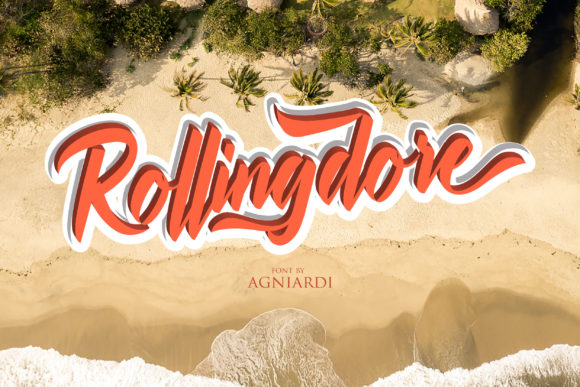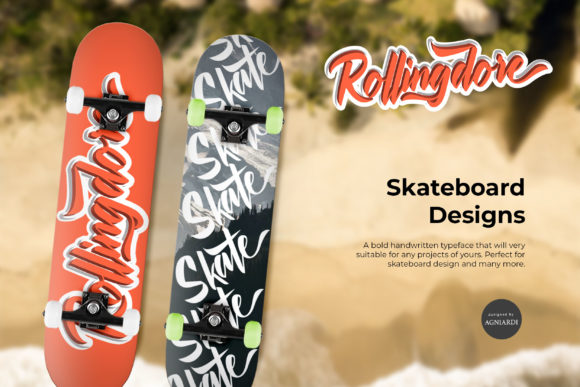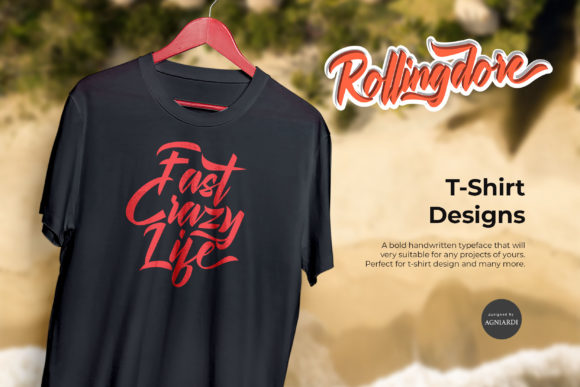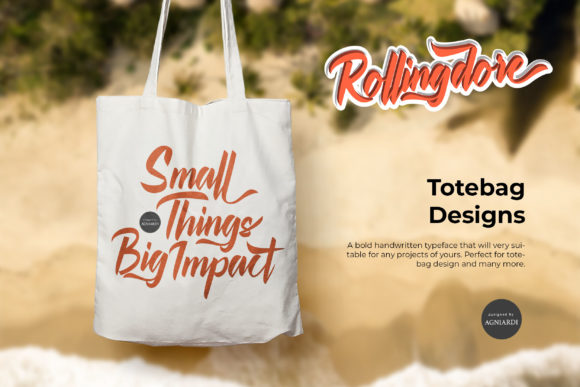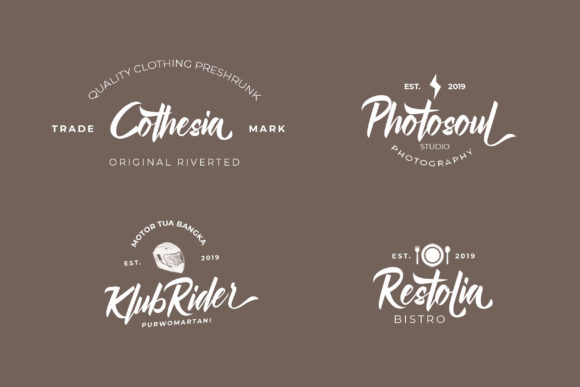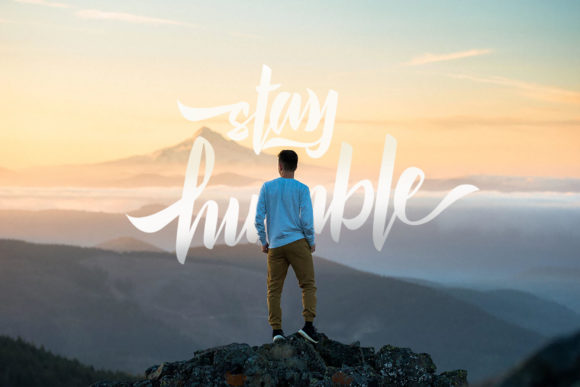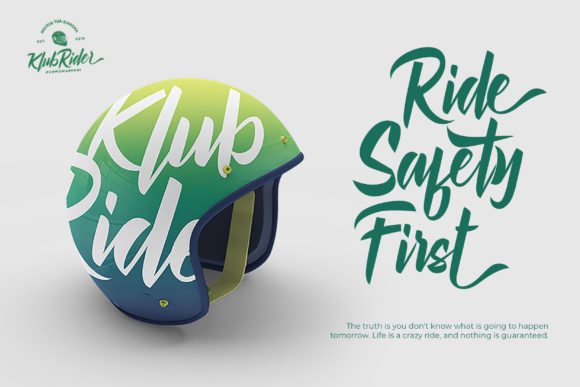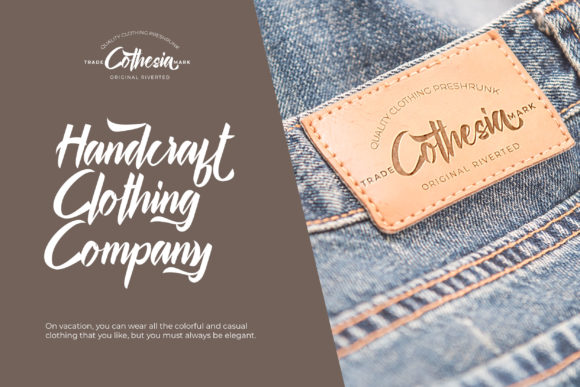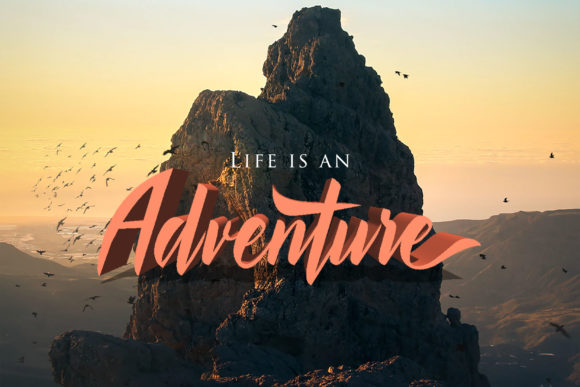
Rollingdore Font
About Rollingdore Font
Rollingdore is a bold and fun vintage font with a unique twist. Use it to turn any design project into a true standout!